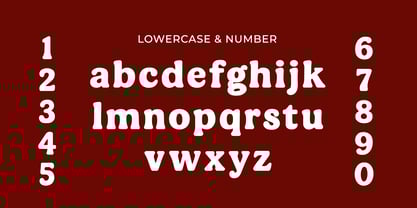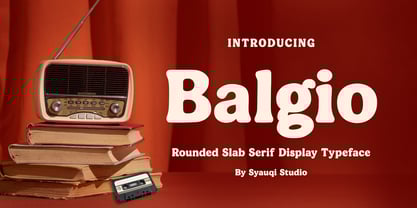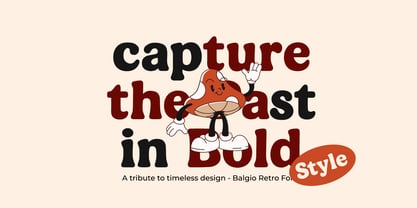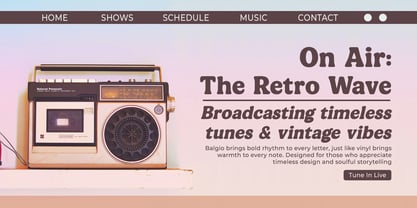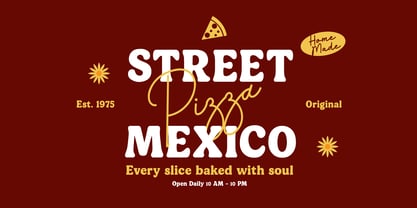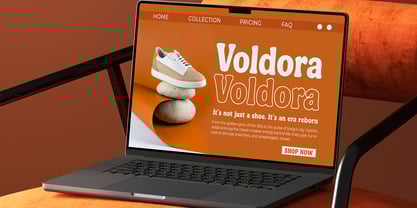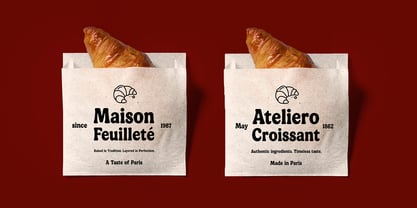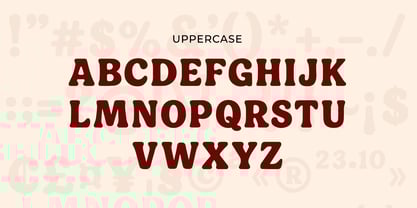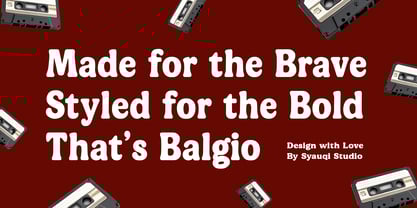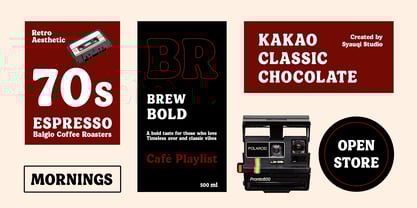
Balgio
by Syauqi Studio
The Balgio Font Family was designed by Muhammad Asroful Umam and published by Syauqi Studio. Balgio contains 2 styles and family package options. More about this family
Balgio – Rounded Slab Serif Display Typeface Balgio is a bold rounded slab serif font that merges modern softness with timeless strength. Designed with smooth terminals, sturdy serifs, and low contrast strokes, Balgio delivers a look that’s both confident and approachable — perfect for brands that want to stand out while staying warm and relatable. Its rounded slab structure makes it ideal for logos, posters, packaging, and headlines, while the carefully balanced proportions ensure legibility and style at any size. Each letter is crafted to maintain visual harmony, offering a clean yet distinctive rhythm that brings sophistication to every design. Balgio supports both uppercase and lowercase, number and all punctuation, and multilingual characters. Making it a versatile choice for creative branding, editorial design, advertising, and digital media. Whether your project leans toward vintage charm or modern minimalism, Balgio adds a bold personality that feels timeless. Thank you, Best regards Syauqi Studio
Designers: Muhammad Asroful Umam
Foundry: Syauqi Studio